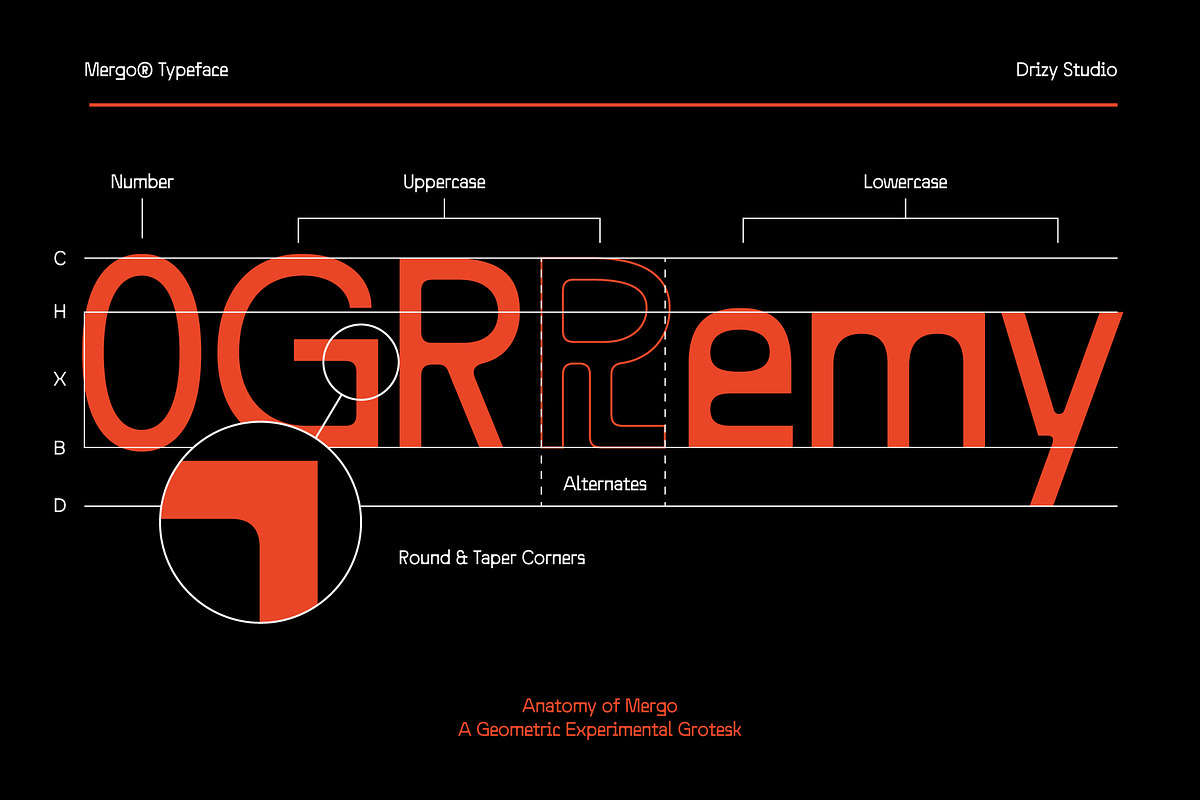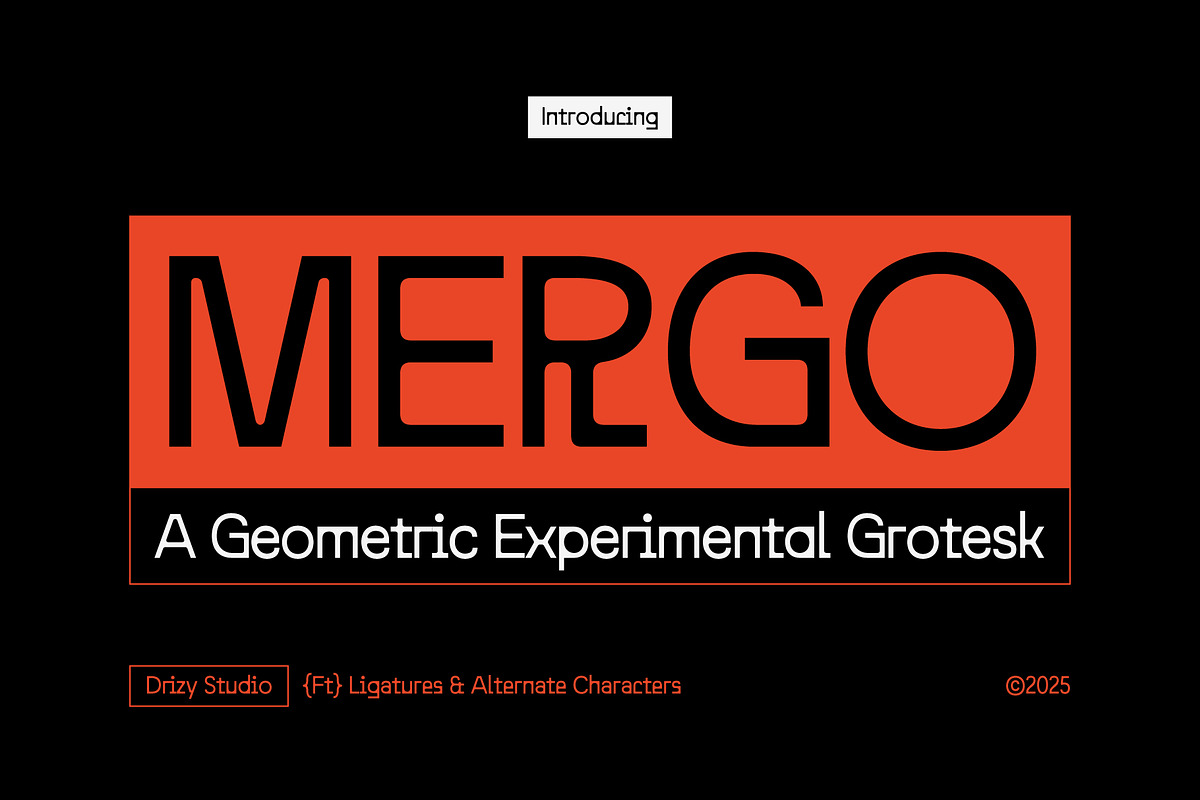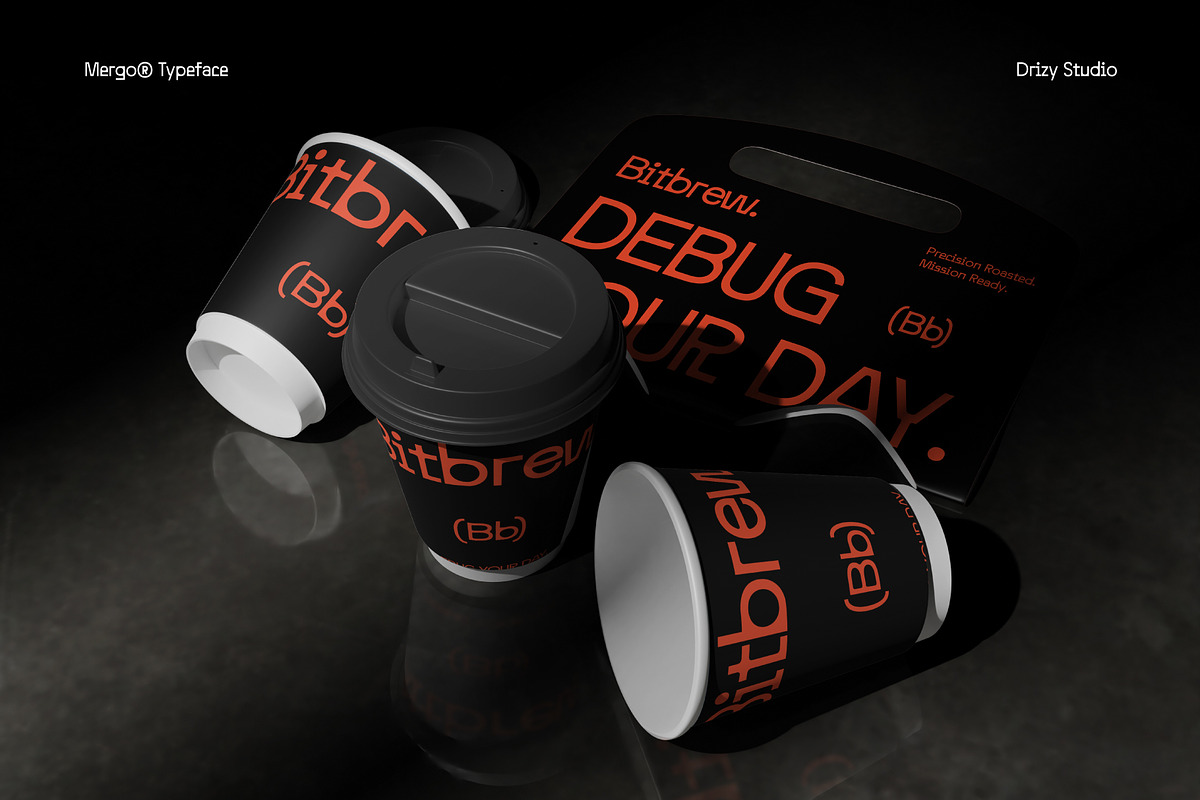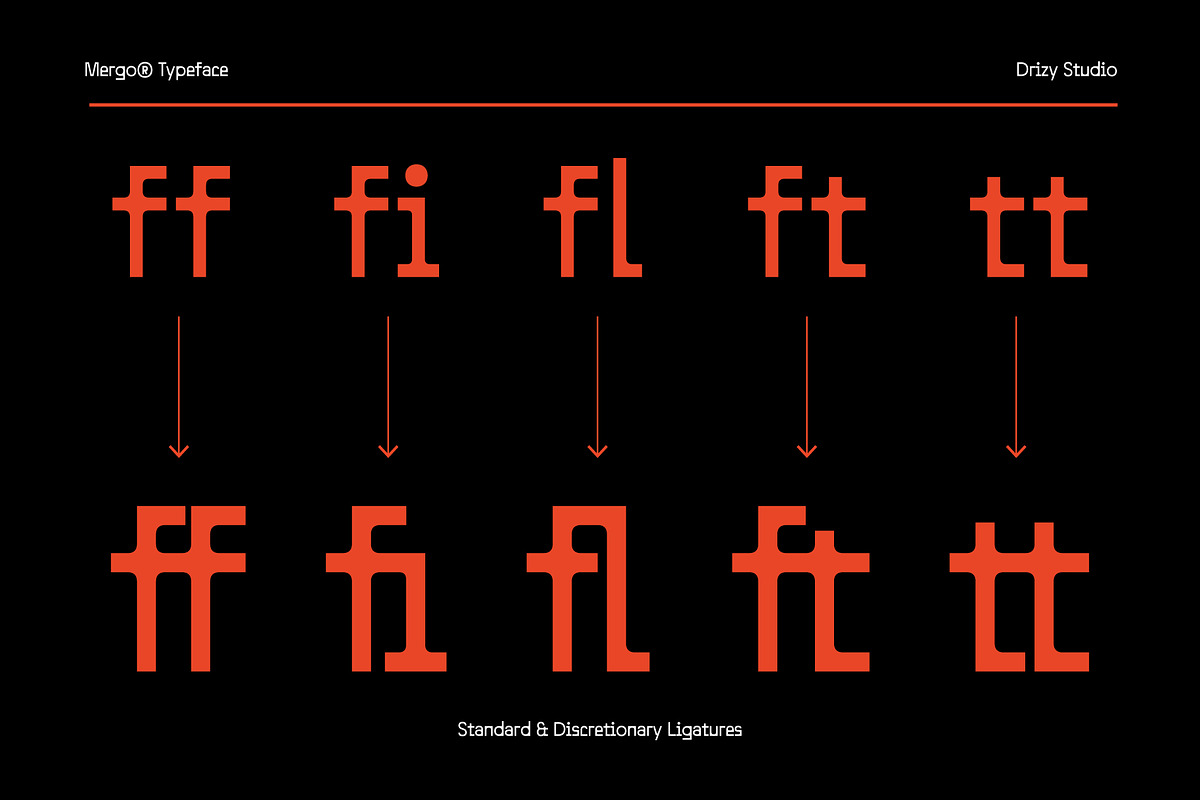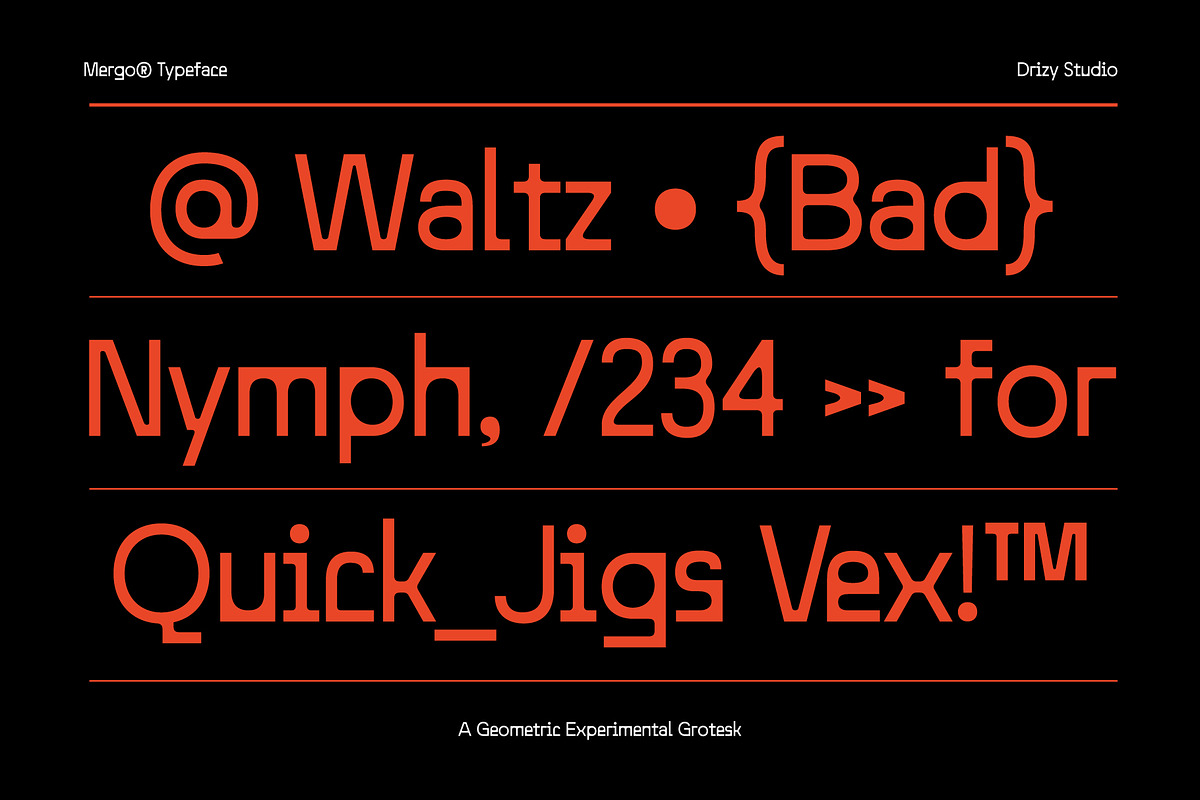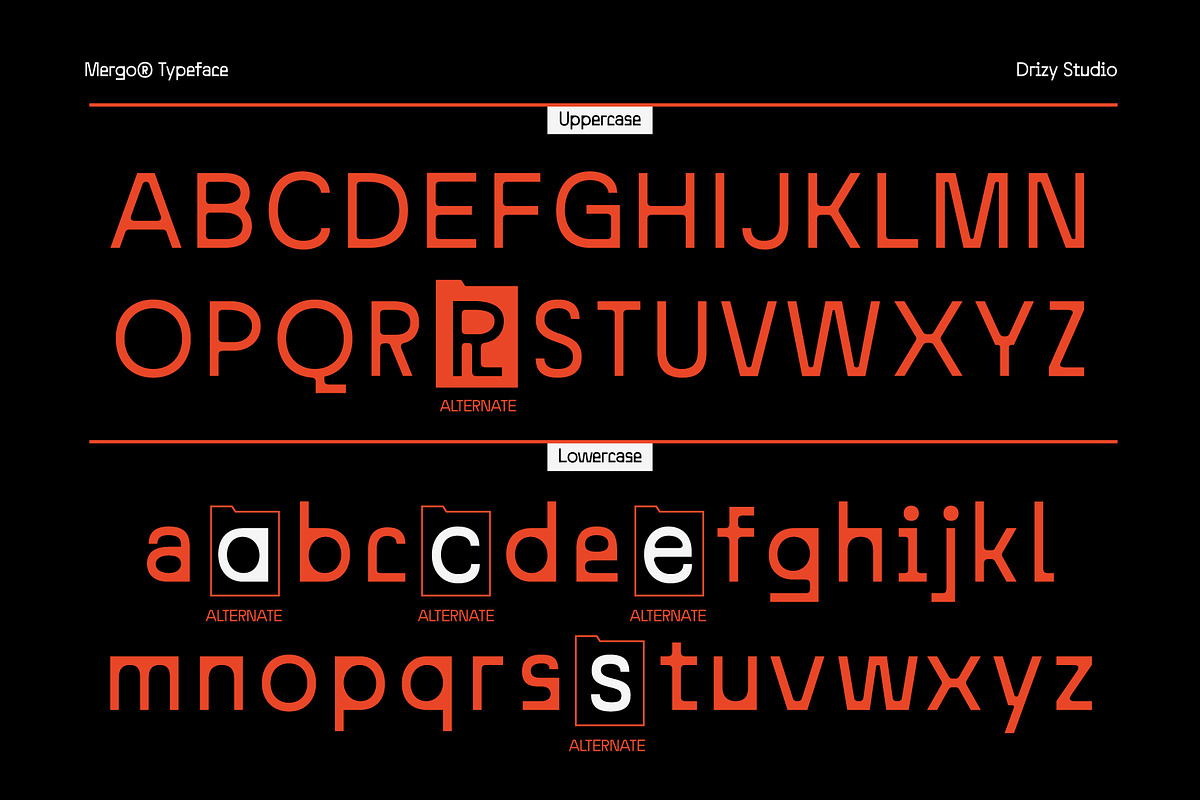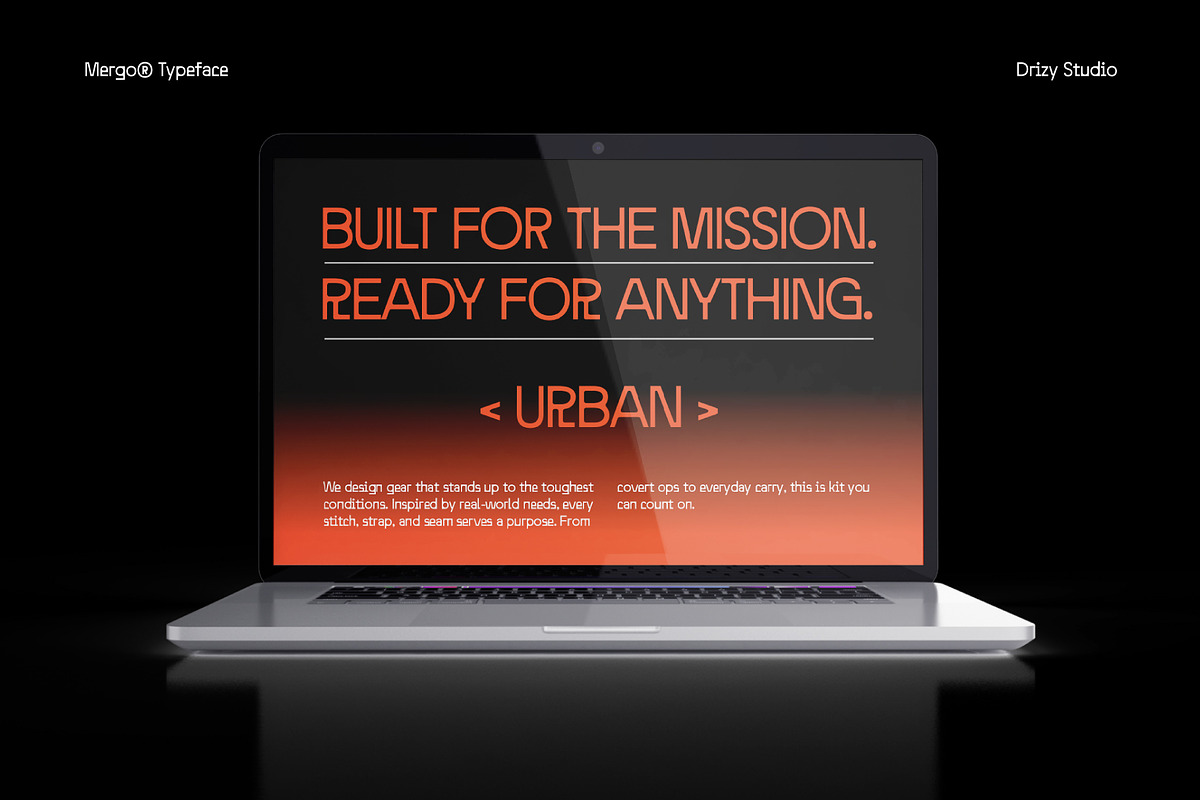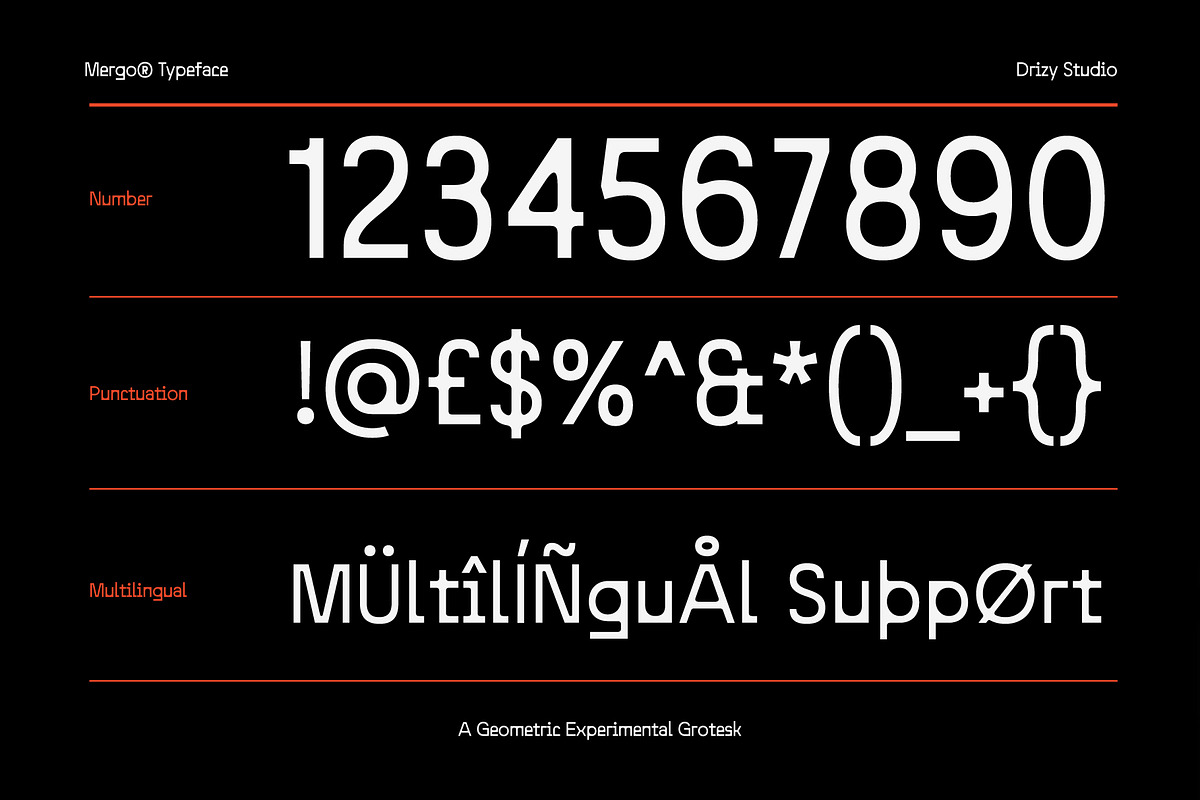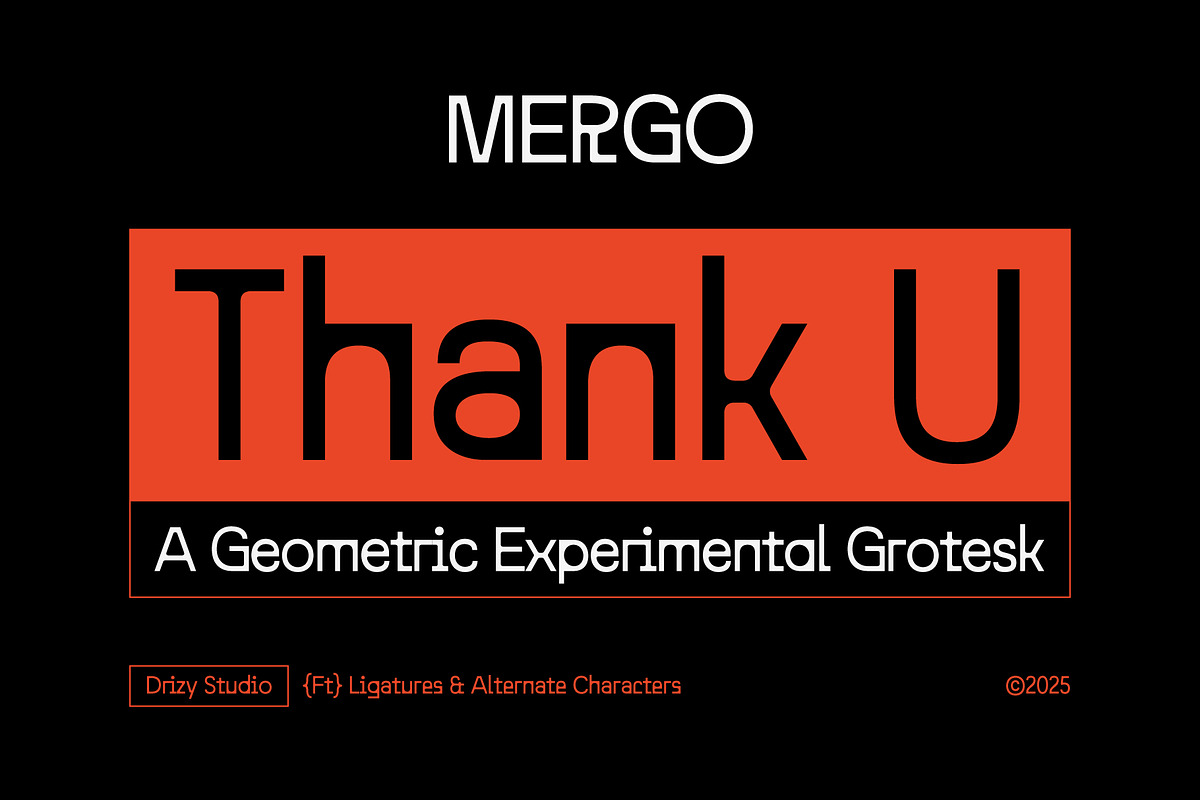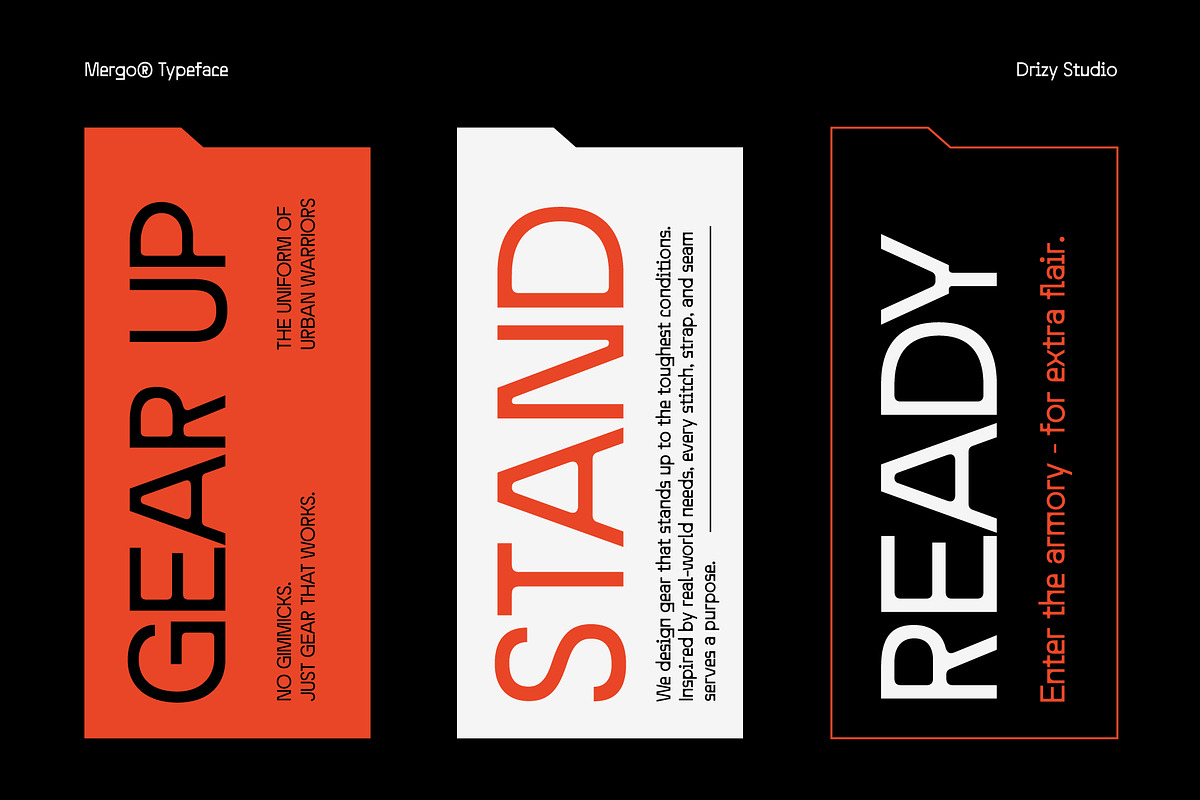
Mergo – Geometric Experimental Grote
Mergo – Geometric Experimental Grotesk Font
A bold exploration at the intersection of structure and spontaneity, Mergo is a geometric grotesk typeface that dares to challenge convention. Nestled within the Square Circle, Mergo fuses the sharpness of squared forms with the softness of circular rhythms, creating a unique visual tension that feels both futuristic and oddly human. Each letterform is crafted with deliberate precision yet playfully distorted in ways that break symmetry and expectation. It’s not just a font, it’s an experiment in controlled chaos, where strict geometry meets organic deviation. Mergo speaks to those who embrace the unconventional.